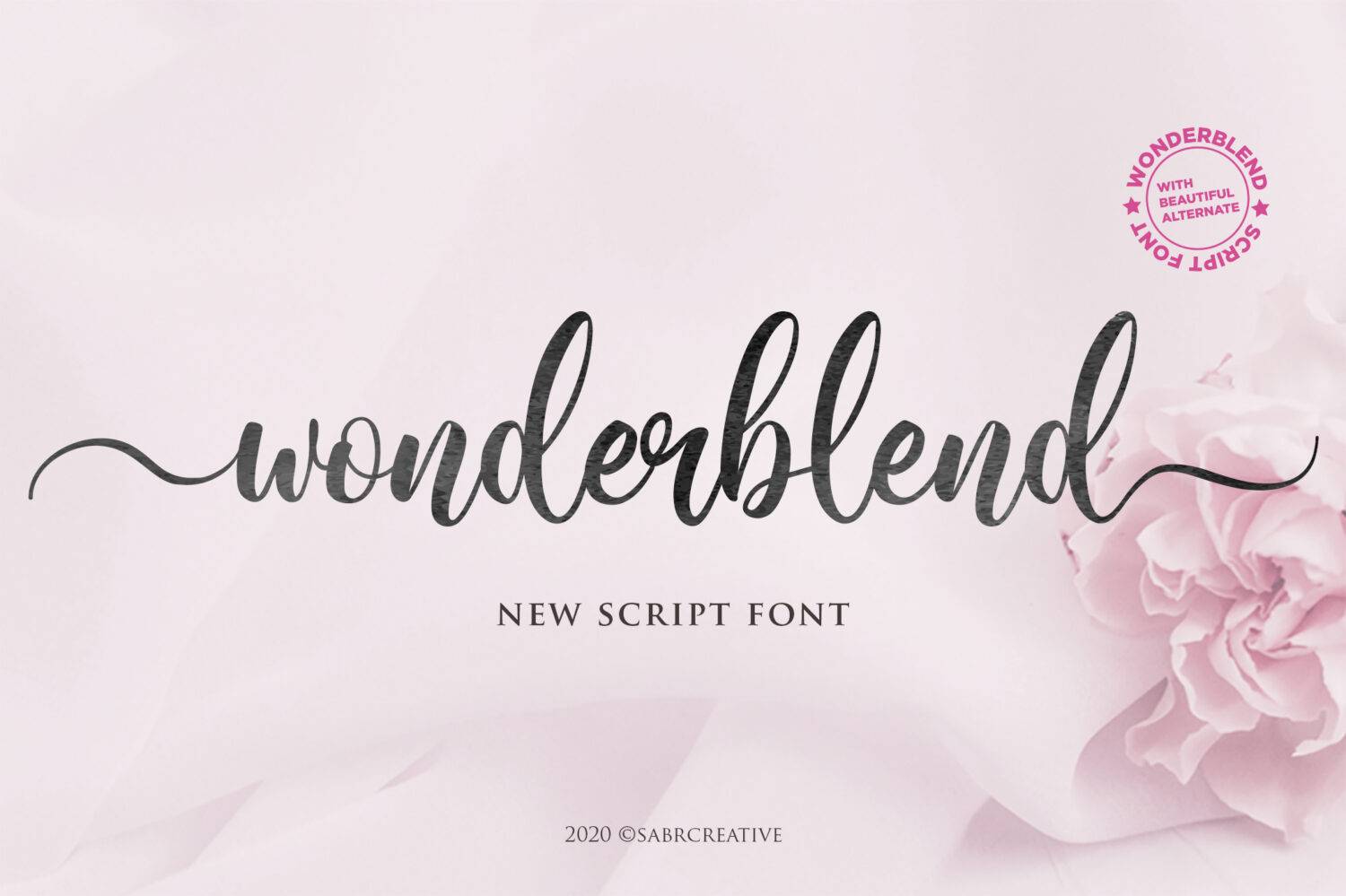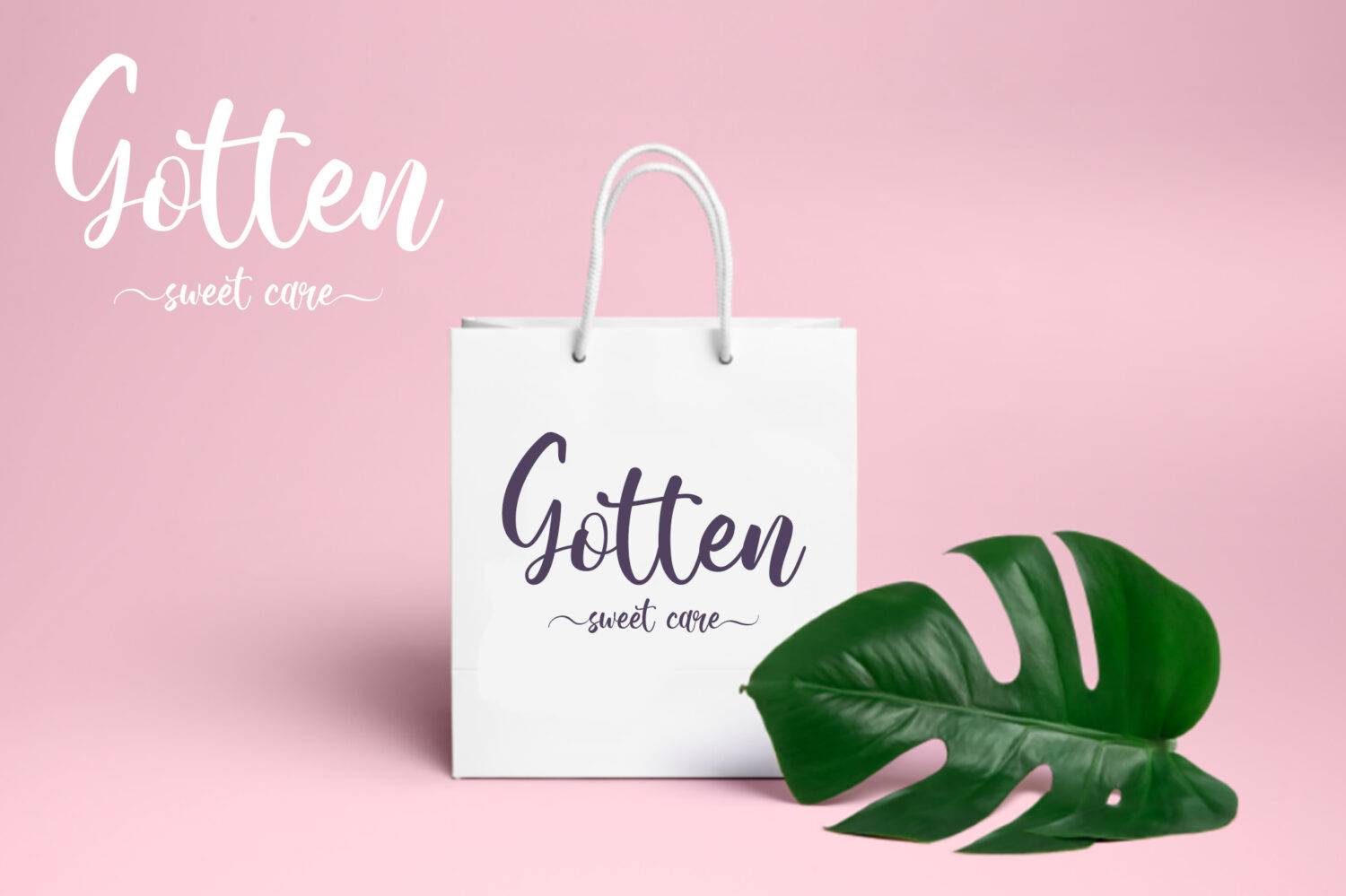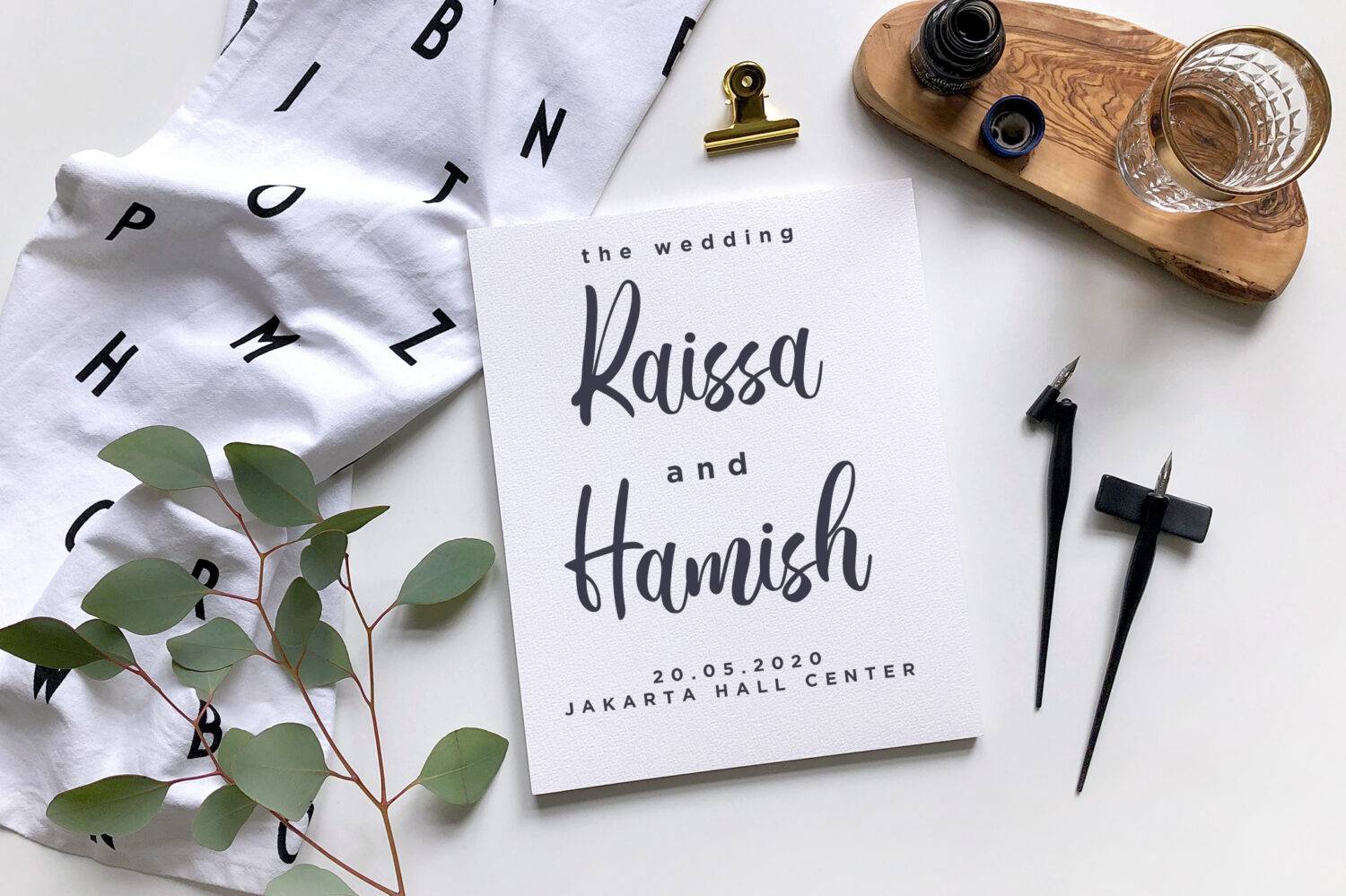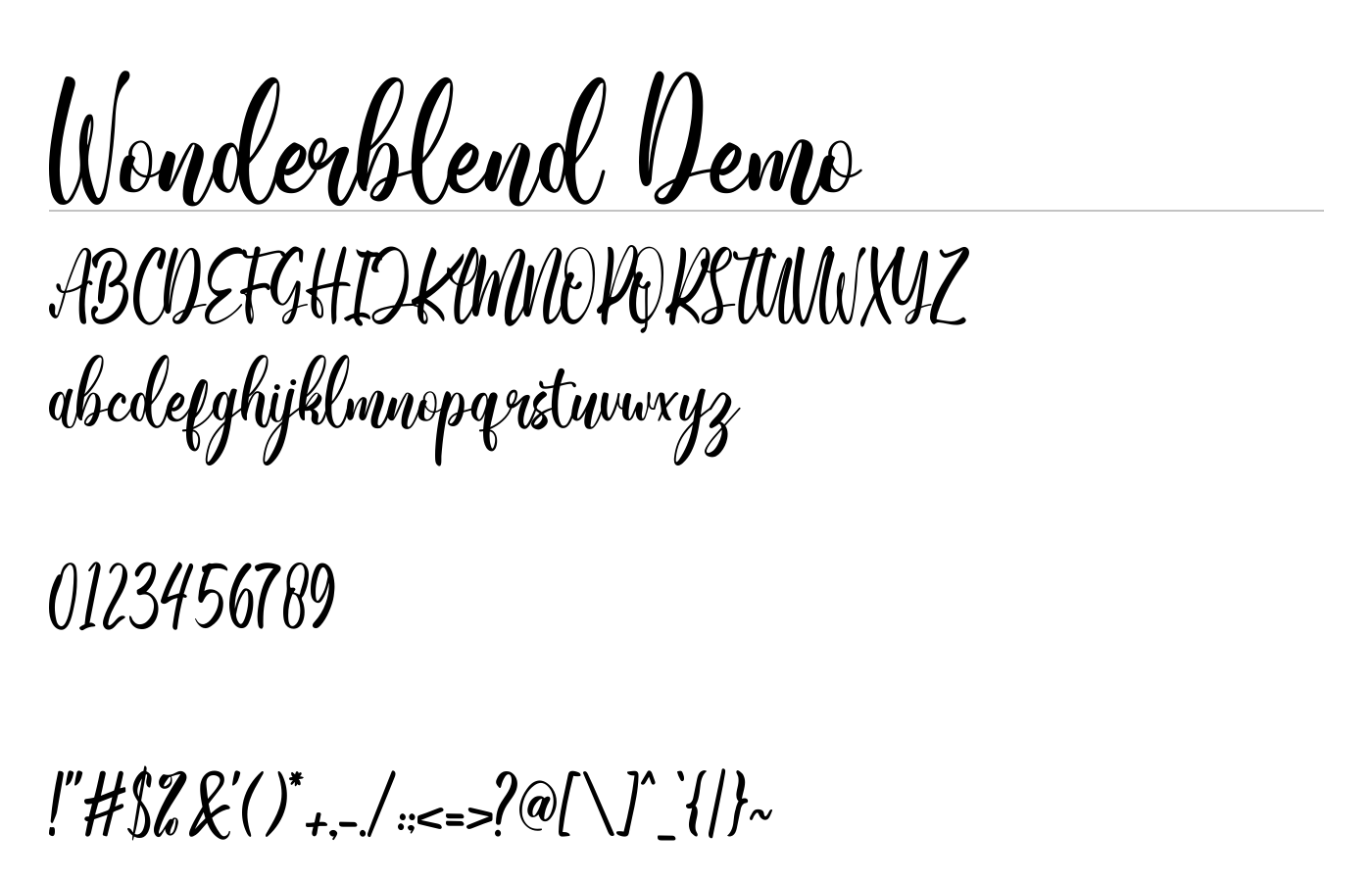
Wonderblend is a lively and elegant script font featuring smooth, flowing strokes and a slightly condensed width that gives it a charming yet sophisticated feel. Its tall, slender letterforms with varied stroke thickness and unique character shapes make it ideal for stylish branding, invitations, and headlines where a personal, handcrafted touch is desired. This font works beautifully to convey warmth and creativity while maintaining readability and flair.
| Font family | Wonderblend Font |
| Designer | Sabrcreative Studio |